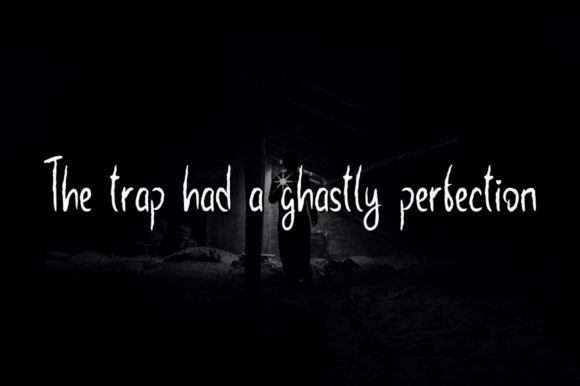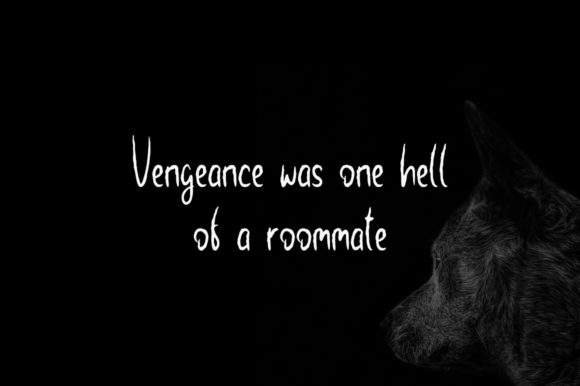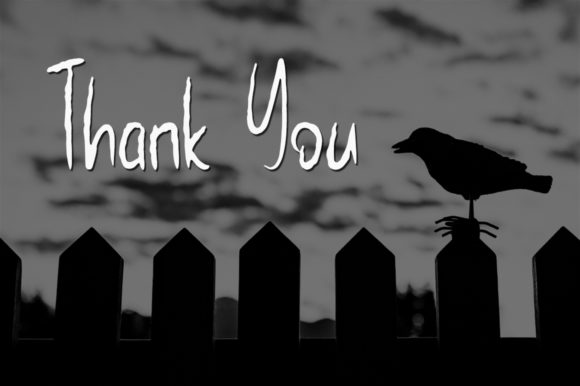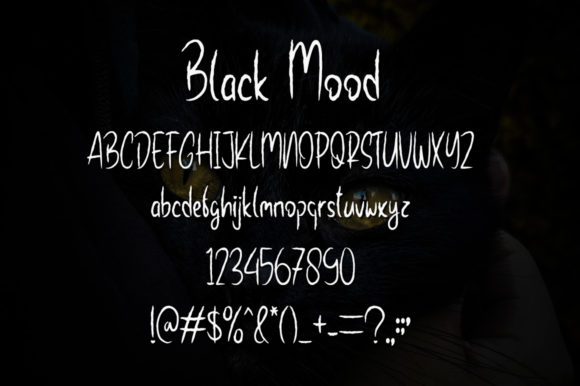
Unleash the Spookiness with Black Mood Font: The Ultimate Choice for Halloween Designs
Are you a designer or a crafter looking for a font that can add a touch of spookiness to your Halloween-themed designs? Look no further than the Black Mood Font. This simple, thin handwritten font is perfect for creating creepy and eye-catching designs that will leave a lasting impression on your audience. In this article, we’ll explore the features of the Black Mood Font and how it can elevate your Halloween party designs or craft projects.
What is Black Mood Font?
Black Mood Font is a unique and stylish handwritten font that features brittle characters, giving it a distinctive and eerie feel. The font’s simplicity and thin lines make it perfect for designs that require a touch of sophistication and elegance, while its creepy vibe makes it ideal for Halloween-themed designs.
Key Features of Black Mood Font
- Simple and Thin Handwritten Font: Black Mood Font features a simple and thin handwritten design that makes it perfect for a wide range of design projects.
- Brittle Characters: The font’s brittle characters give it a distinctive and eerie feel that’s perfect for Halloween-themed designs.
- Creepy Vibe: The font’s creepy vibe makes it ideal for designs that require a touch of spookiness and eeriness.
- Perfect for Halloween: Black Mood Font is specifically designed for Halloween-themed designs, making it the perfect choice for party invitations, decorations, and other Halloween-related projects.
How to Use Black Mood Font in Your Designs
Black Mood Font is a versatile font that can be used in a wide range of design projects, from party invitations to social media graphics. Here are some ideas on how to use Black Mood Font in your designs:
- Halloween Party Invitations: Use Black Mood Font to create spooky and eye-catching party invitations that will set the tone for your Halloween party.
- Social Media Graphics: Use the font to create creepy and engaging social media graphics that will grab the attention of your followers.
- Decorations: Use Black Mood Font to create spooky decorations, such as banners, signs, and posters, that will add a touch of eeriness to your Halloween party.
- Craft Projects: Use the font to create creepy and unique craft projects, such as Halloween-themed cards, gift tags, and other DIY projects.
Tips for Using Black Mood Font
Here are some tips for using Black Mood Font in your designs:
- Use it with Dark Colors: Black Mood Font looks best with dark colors, such as black, dark gray, and purple. Use it with these colors to create a spooky and eerie effect.
- Experiment with Different Sizes: Experiment with different font sizes to create a unique and eye-catching effect.
- Combine it with Other Fonts: Combine Black Mood Font with other fonts to create a unique and interesting effect.
Black Mood Font is a unique and stylish handwritten font that’s perfect for Halloween-themed designs. Its simple and thin design, brittle characters, and creepy vibe make it ideal for creating spooky and eye-catching designs. With its versatility and ease of use, Black Mood Font is a must-have font for designers and crafters who want to create unique and creepy designs for their Halloween party or craft projects. So, download Black Mood Font today and unleash the spookiness in your designs!